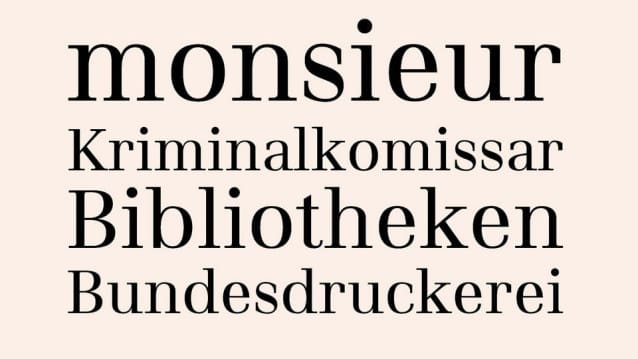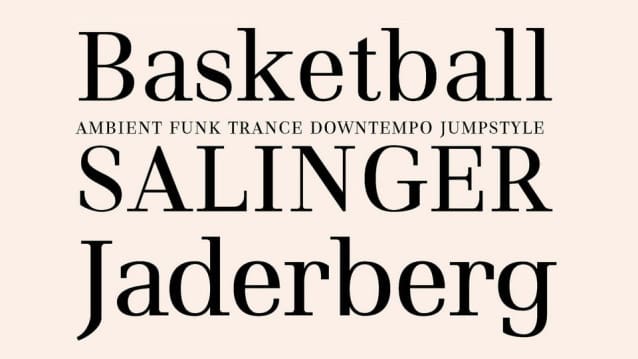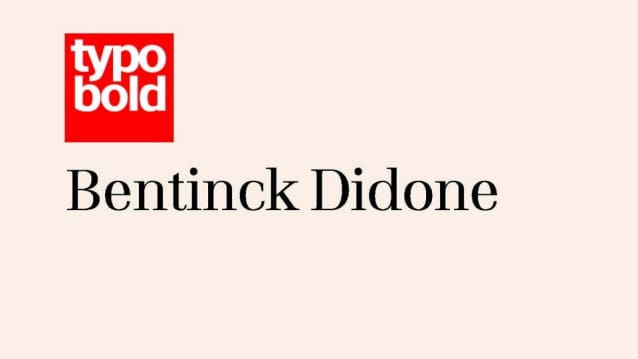
Bentinck Font
Bentinck Font is a serif font that reimagines the classic Didone style with soft, restrained shapes. This modern interpretation blends the elegance of traditional Didone typefaces with a touch of contemporary sophistication, resulting in a beautifully balanced and refined typographic experience.
Bentick font features subtly curved serifs and smooth transitions that soften the high contrast typically associated with Didone fonts. Ideal for projects that demand a sense of grace and subtlety, the font is perfect for fashion magazines, branding materials, or editorial designs.